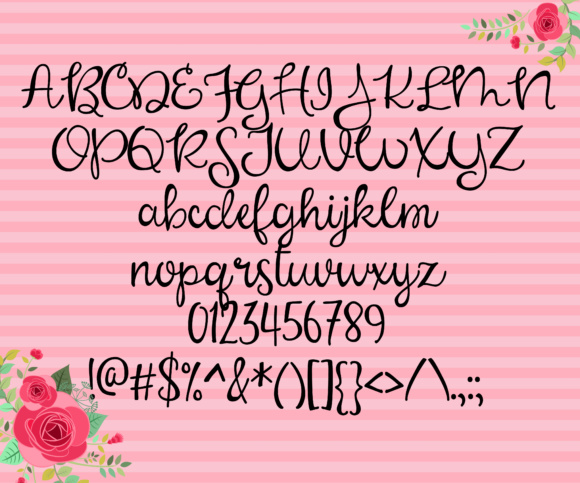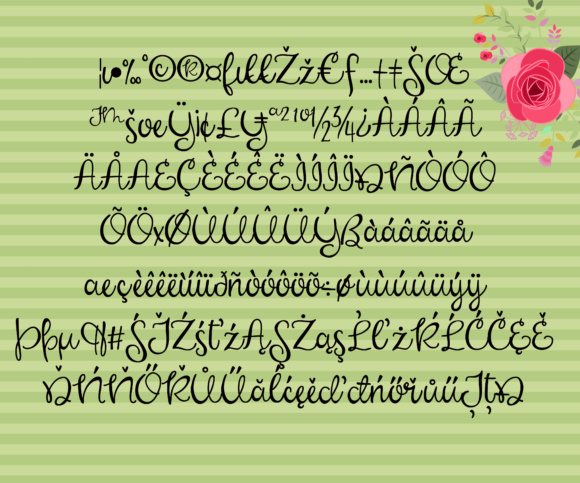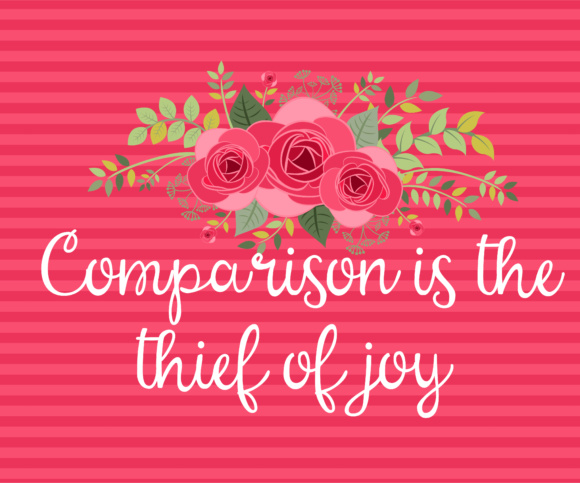
Introduction to Mabel Rose Font
Remember that moment when you stumbled upon the perfect font for your creative project? The one that makes your design stand out, leaving a lasting impression on your audience? For designers, finding the right font can be a game-changer, and that’s exactly what the Mabel Rose Font offers.
With its delicate loops and romantic feel, Mabel Rose Font is a high-quality design resource that can elevate even the most light-hearted and pretty projects. Whether you’re working on a wedding invitation, a blog post, or a social media graphic, this font is sure to add a touch of sophistication and modernity. The best part? It’s available for a free download, making it a valuable asset for designers looking to add some creative flair to their work.
Let’s take a closer look at what makes the Mabel Rose Font so special, and how you can use it to take your designs to the next level.
Key Features of Mabel Rose Font
- High-quality, elegant script font perfect for creative projects, such as wedding invitations, greeting cards, and more.
- Comes with a transparent background, allowing for easy customization and versatility in design.
- Features a beautiful, cursive script design with intricate details and flourishes, adding a touch of sophistication to any project.
- Designed with a high resolution of 300 DPI, ensuring crisp and clear typography in print and digital applications.
Honest Review: Mabel Rose Font
I recently had the chance to work with the Mabel Rose Font for a creative project, and I must say it’s a high-quality design resource that exceeded my expectations. The font’s elegant and sophisticated look made it perfect for the project’s theme.
One of the things that stood out to me was the font’s transparent background, which allowed me to easily layer it over other design elements. This feature alone saved me a significant amount of time and effort in the design process. ✨
Here are some of the key features that I found particularly useful:
- Elegant and sophisticated design
- Transparent background for easy layering
- High-quality vector graphics
Overall, I was impressed with the Mabel Rose Font’s performance and versatility. While it may have some limitations, it’s definitely a valuable resource for designers looking to add a touch of elegance to their projects.
Tips for Getting the Most Out of Mabel Rose Font
For a transparent background, use the font on a layer with a transparent background or adjust the layer blending mode. Experiment with different font sizes and colors to achieve a unique look.
The Mabel Rose Font is ideal for creative projects such as wedding invitations, baby shower invitations, and other decorative designs. Its high-quality design makes it a great addition to any project.